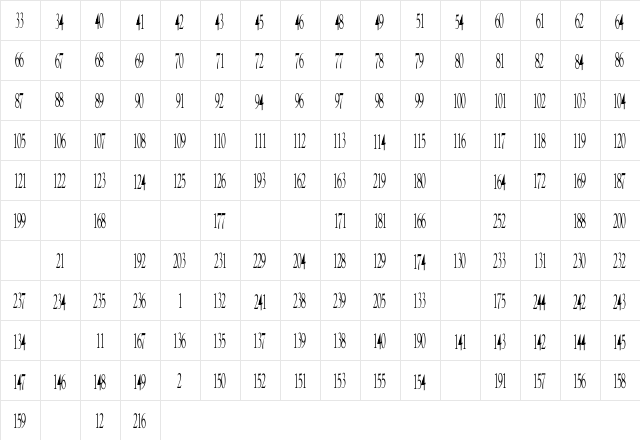
Cryptographic Regular
Design Context for Cryptographic Typeface
Cryptographic offers clean, dependable letterforms without strong stylistic allegiance, making it a practical choice for designers who need flexibility.